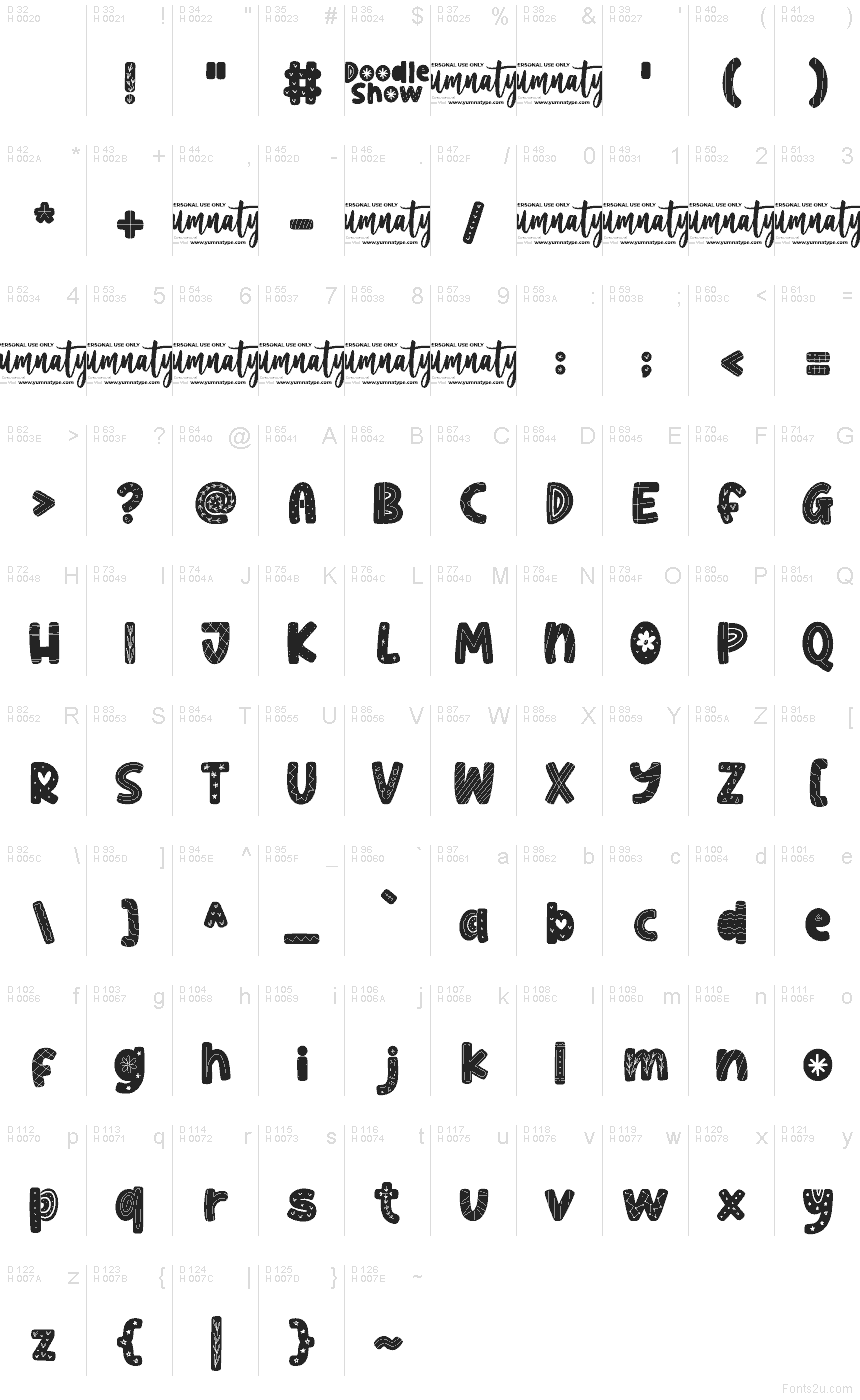
Doodle Show Personal Use
Doodle Show font by Yumna Family is a free decorative display font that turns each letter into a tiny illustrated stage. Bold, inky shapes are packed with wavy lines, zigzags, dots, and playful asterisk “bursts,” giving text a chunky, sticker-like feel. The rhythm of repeated patterns holds everything together, so even mixed-case words look fun but still readable at a glance.
Using Doodle Show, you can instantly brighten kids’ posters, birthday invitations, classroom materials, YouTube thumbnails, toy packaging, and craft fair signage. This free font shines at larger sizes where the doodles can really be seen; pair it with a simple rounded sans serif for body text to keep the layout friendly and balanced.